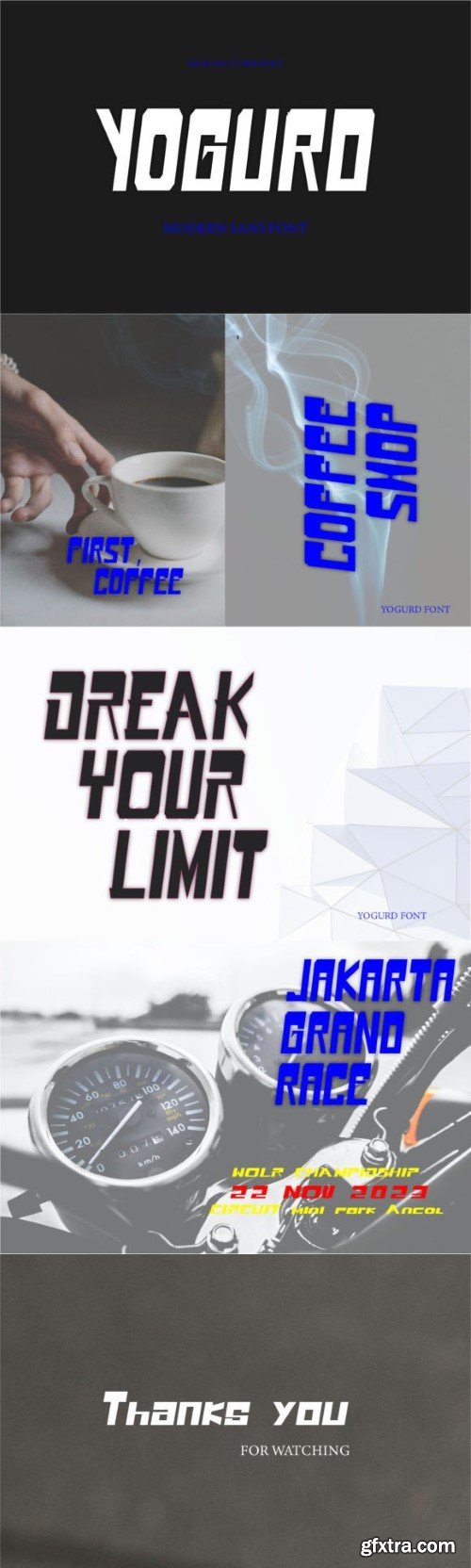
亚果特字体
Yoguro is a bold and assertive sans serif font. No matter the topic, this font will be an incredible asset to your fonts' library, as it has the potential to elevate any creation.